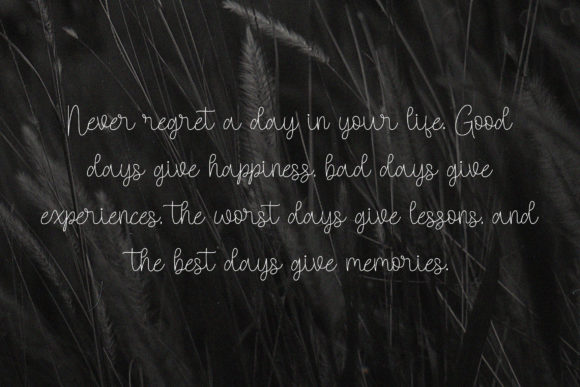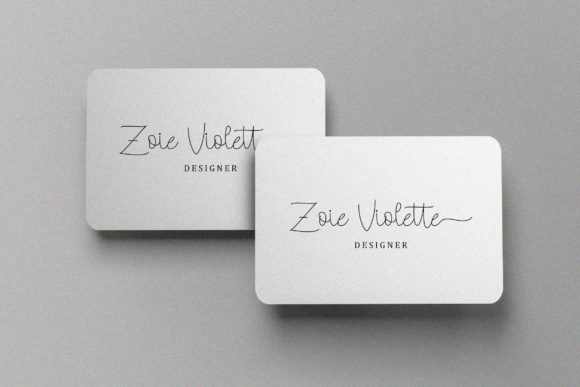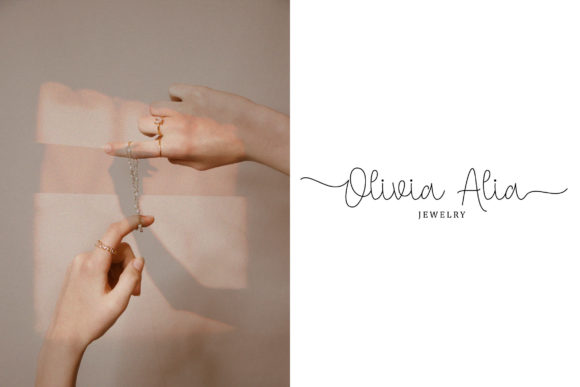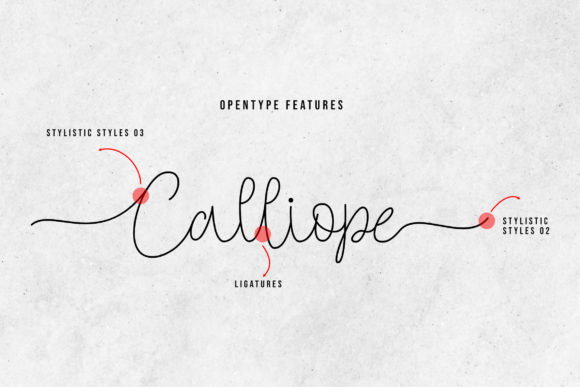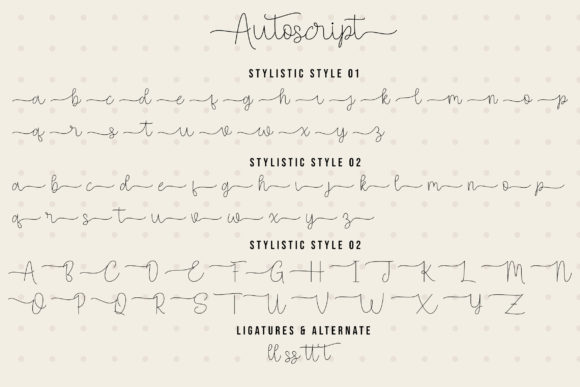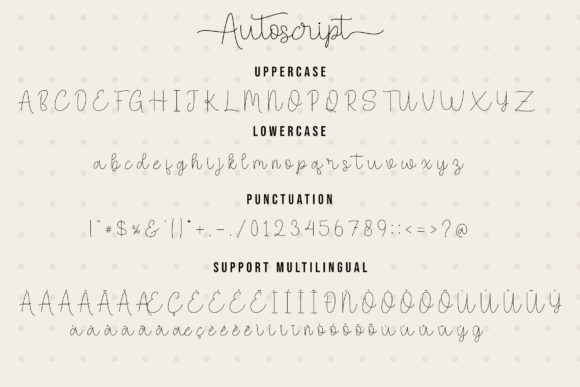
Autoscript Font
About Autoscript Font
Autoscript is a thin lettered and delicate script font. Add it confidently to your projects, and you will love the results.